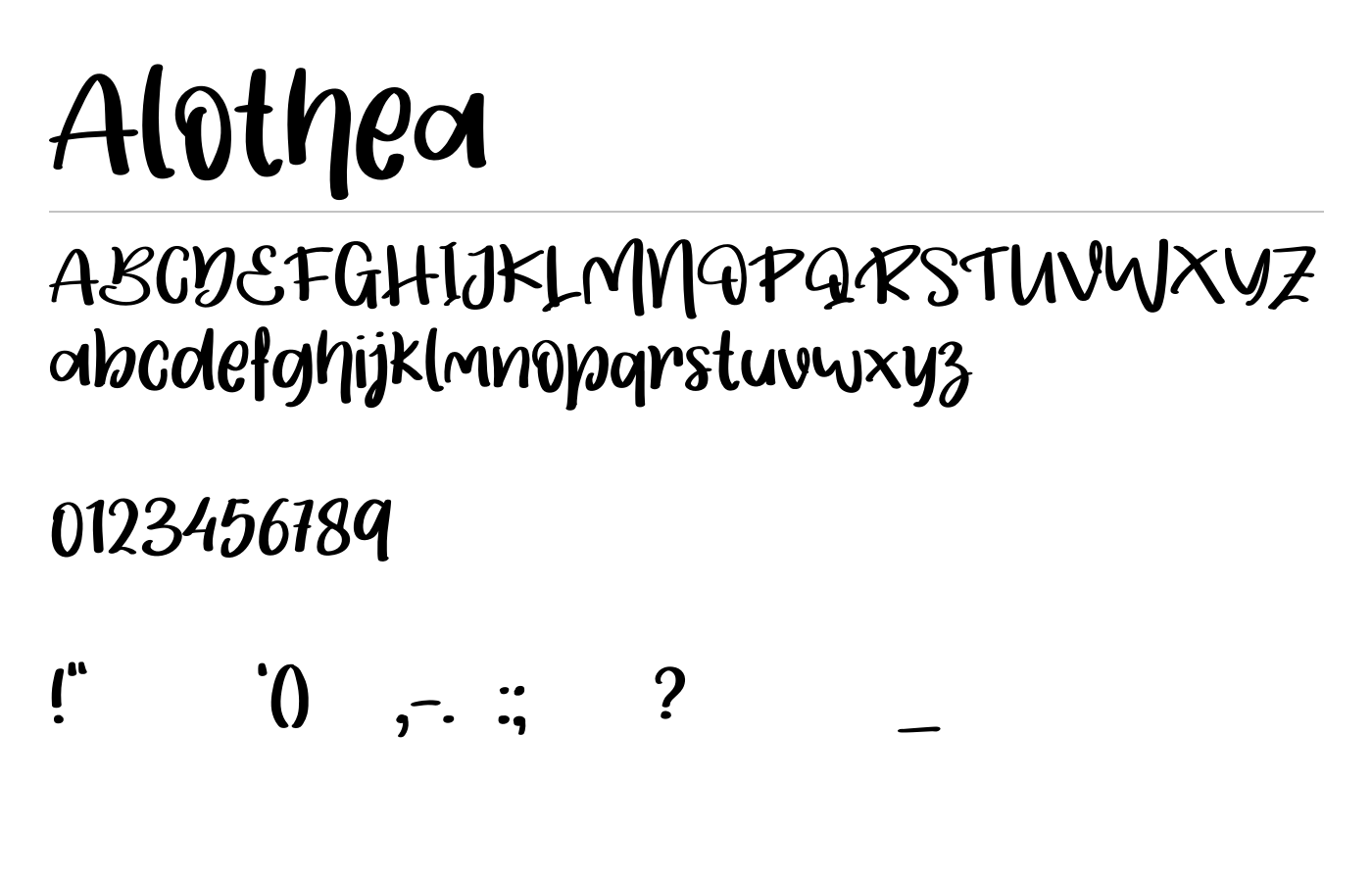
Alothea is a playful, casual handwritten font with a smooth, friendly flow and a medium weight that makes it approachable and easy to read. Its lively, slightly irregular letterforms and rounded shapes give it a warm, informal personality, making it perfect for creative projects, invitations, and brands that want a personal, charming touch. This font works well in headlines, logos, and packaging where a fun, human feel is desired.
Alothea Font
About Alothea Font